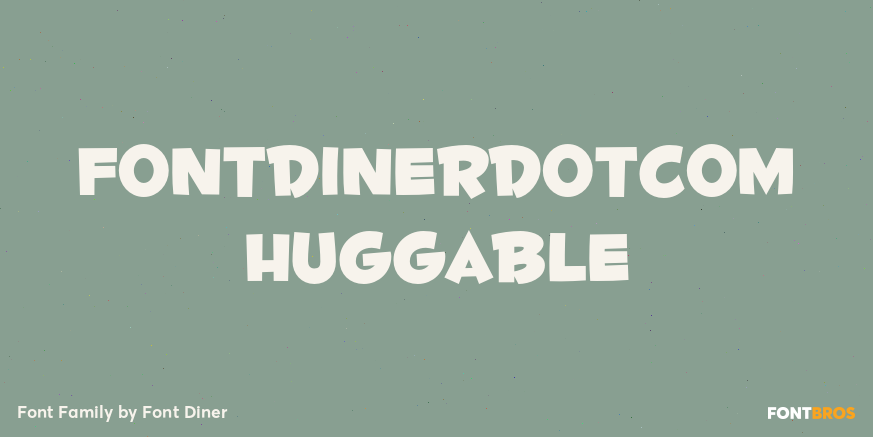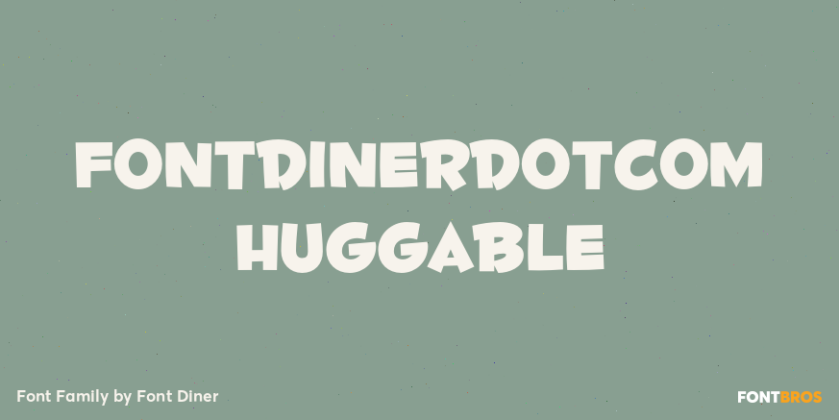
HomeFont BrosArt Deco (1910-1935)Fontdinerdotcom Huggable Art Deco (1910-1935)Sans SerifRetro (1936-1965)Wacky Fontdinerdotcom Huggable FacebookXPinterestWhatsApp 1 of 1 About Fontdinerdotcom Huggable Wrap your arms around this chunky, squeezable, huggable font and add some heavy lovin\’ to your design projects!  DOWNLOAD ON FONT BROSThis font is sold and delivered by Font Bros. Font Canyon may earn a commission if you buy through this link. People also explored Angelic Font Mocobuku Font Breather Bottairs Font Snoop City Makunu Font Small Font Drast Script Font Boho Font 367 0 TagsFontdinerdotcom Huggable Font Previous articleMatryoNext articleUngap Blocks LEAVE A REPLY Cancel reply Comment: Please enter your comment! Name:* Please enter your name here Email:* You have entered an incorrect email address! Please enter your email address here Website: Save my name, email, and website in this browser for the next time I comment. Personal Use Free Rogueland Personal Use Free Read more about this font Joystix Monospace Personal Use Free Read more about this font Old Linoleum Personal Use Free Read more about this font 1313 Mockingbird Lane Personal Use Free Read more about this font BLOG Free vs Paid Fonts: Why Investing in Premium Fonts Is Worth It Free vs Paid Fonts: Why Premium Fonts Are Worth It in 2025 The debate of free vs paid fonts continues in the design world. While... Transform Your Website: Elevate Your Typography with 7 Best Web Font Generators 5 Fonts That Will Dominate Design Trends in 2026 Modern Sans-Serif Fonts That Brands Love in 2025